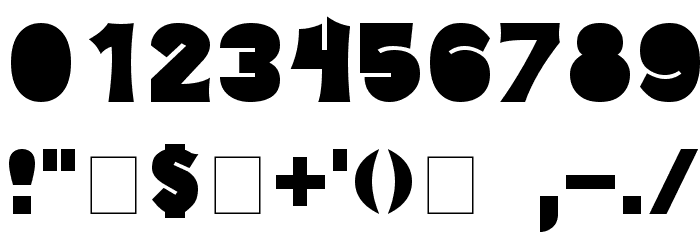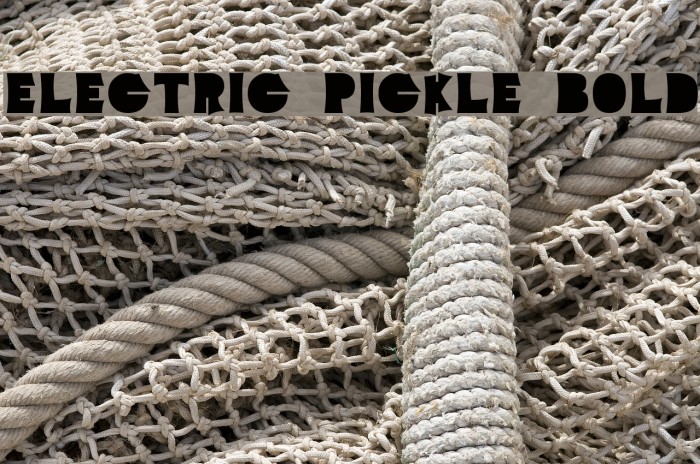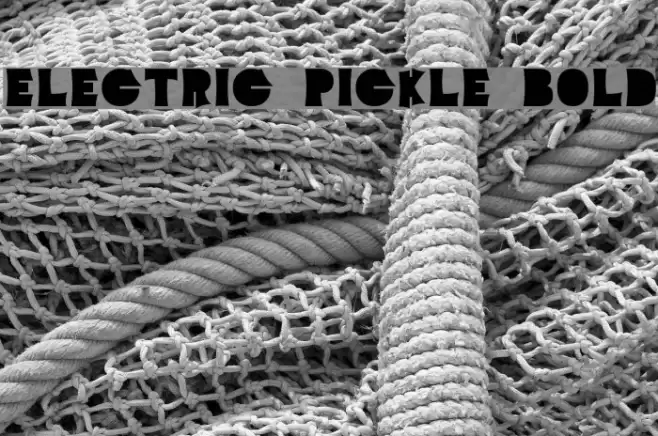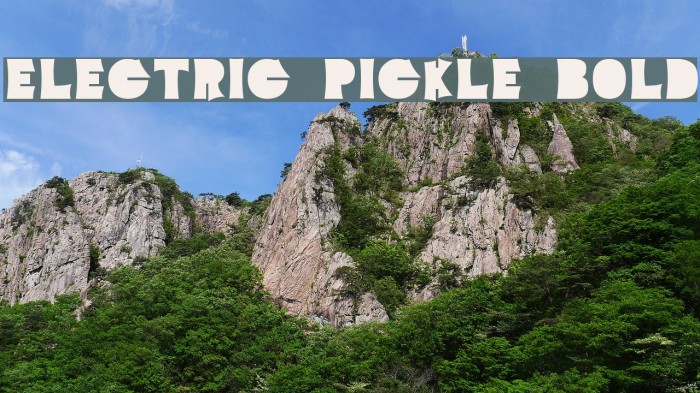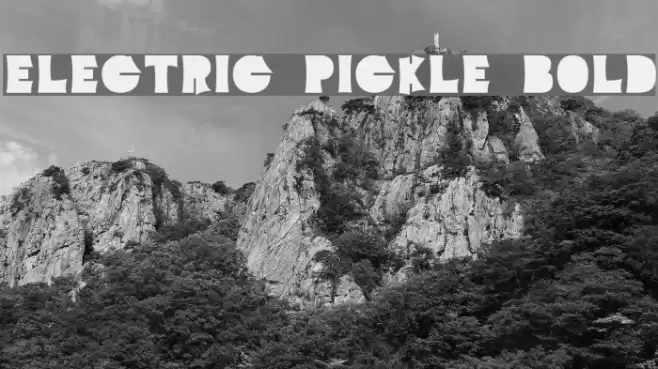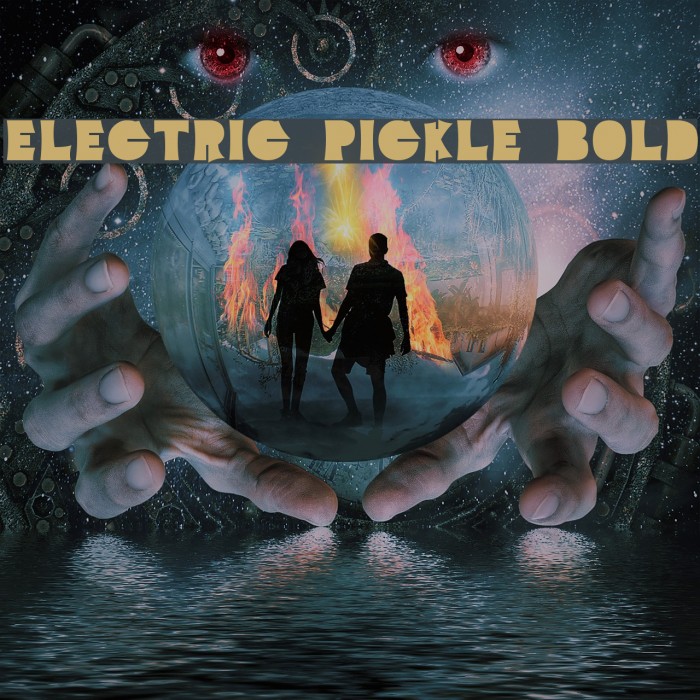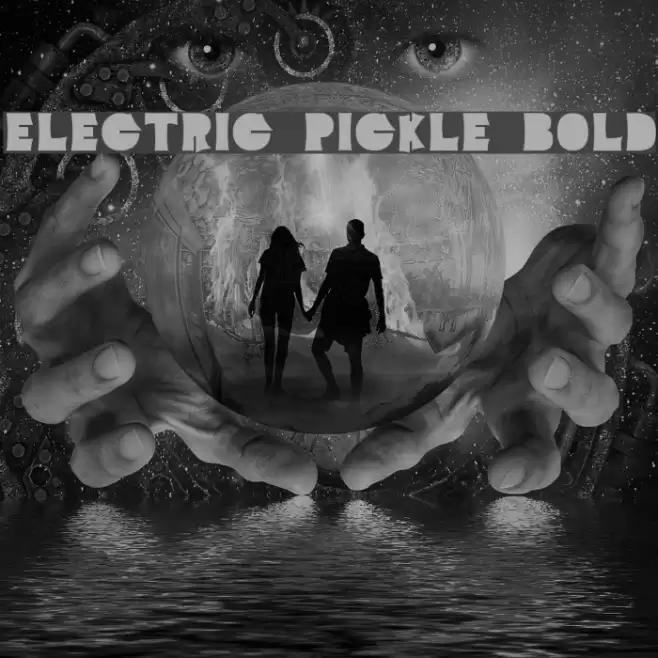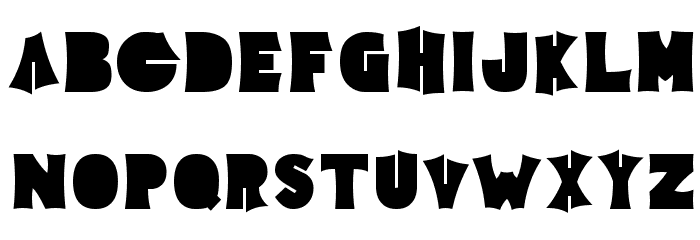
Electric Pickle Bold Font
Electric Pickle Bold Description
This bold and striking font features a unique, edgy design with sharp angles and thick strokes. The characters are highly stylized, with a playful yet aggressive appearance that makes them stand out. The uppercase and lowercase letters maintain a consistent boldness, while the numbers and special characters follow the same design principles, ensuring a cohesive look. The font's distinct style is characterized by its heavy weight and dramatic presence, making it ideal for attention-grabbing applications.
| Proposed Projects | Ideal for posters, album covers, branding projects, and any design requiring a bold statement. |